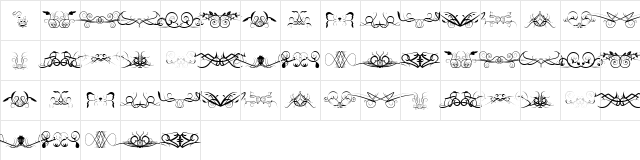
Ornaments soul Regular
| Foundry | dcoxy medina gregory |
| Designer | dcoxy medina gregory |
Design Context for Ornaments soul Typeface
Ornaments soul brings ornamental detail and strong personality to headlines and identities, where visual impact matters more than quiet functionality.
Font Pairing: Pair with a clean neutral sans-serif for body copy to let Ornaments soul's character lead without overwhelming the composition.
Pro Tip: Treat Ornaments soul as the centrepiece of your typographic hierarchy. One strong heading set in a decorative face can carry an entire layout.